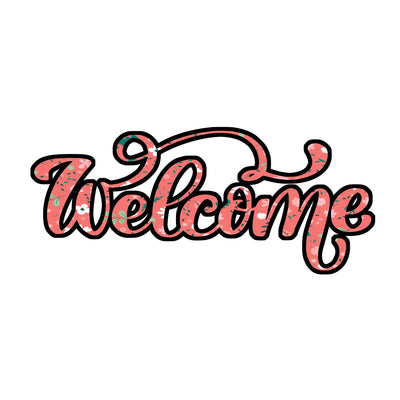
"Welcome Your Guests with Elegance: Welcome Floral PNG with Fancy Font"
Make a statement of warmth and hospitality with our Welcome Floral PNG featuring a fancy font. This digital download is the perfect way to add a touch of sophistication and charm to your home decor, event invitations, signage, and more. Welcome your guests with style and elegance using this versatile and beautifully designed PNG file.
2. Fancy Font Elegance: The word "Welcome" is elegantly scripted in a fancy font, adding a touch of sophistication to your designs. This combination of script and floral elements creates a harmonious and welcoming atmosphere.
3. Floral Flourishes: Surrounding the word "Welcome" are delicate floral embellishments that bring a touch of nature's beauty to your designs. These timeless elements symbolize growth, life, and a warm reception for your guests.
Welcome with Elegance:
Whether you're a homeowner looking to enhance your living space or an event planner seeking the perfect invitation element, the Welcome Floral PNG with Fancy Font offers a touch of sophistication and charm. Welcome your guests with grace and style, creating an inviting atmosphere for any occasion. Download this elegant design today and add a timeless welcome to your creative endeavors, making a lasting impression on your guests and loved ones.